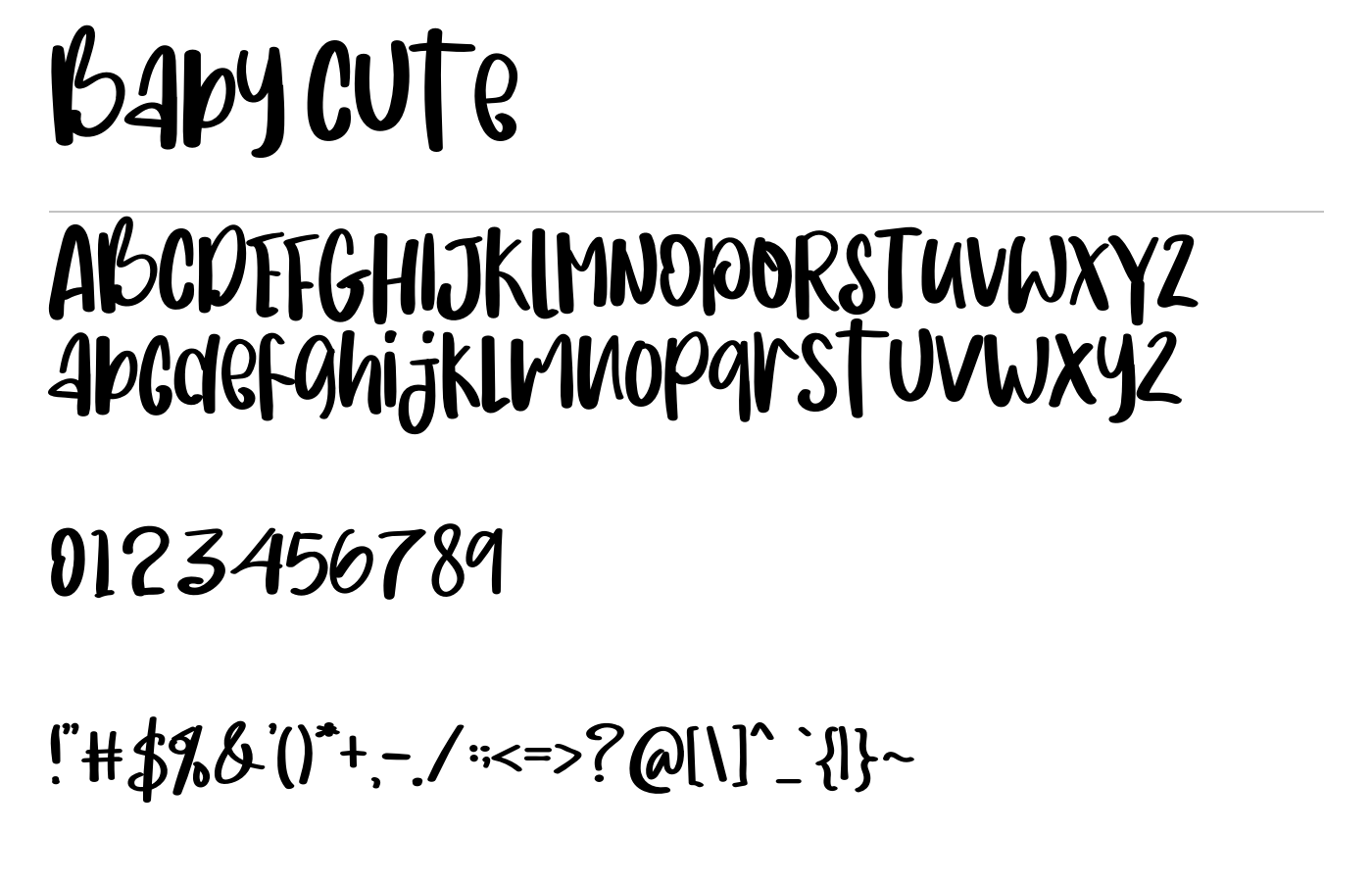
Baby Cute Font is a playful, hand-drawn sans serif typeface with a casual, friendly vibe. Its bold, rounded letterforms and slightly irregular strokes give it a warm, approachable feel, making it perfect for designs aimed at children, informal branding, or fun, creative projects. This font works well in logos, invitations, and packaging where a lively, personal touch is desired.
Baby Cute Font
About Baby Cute Font